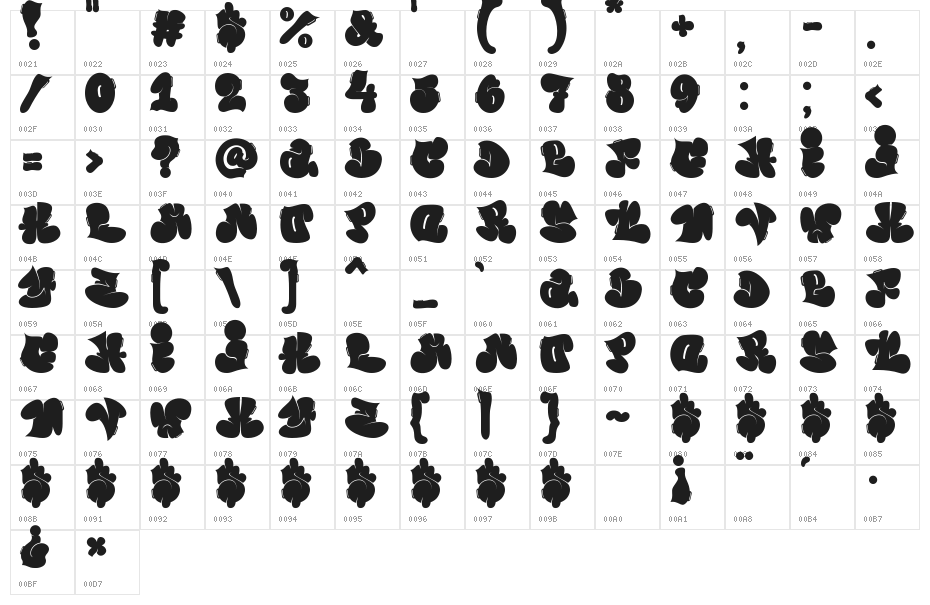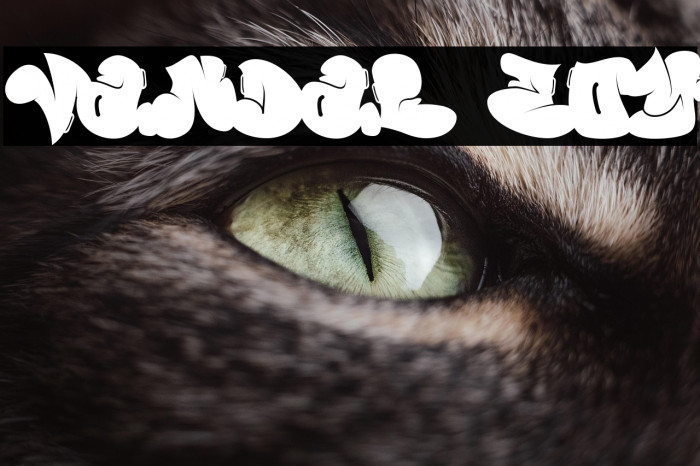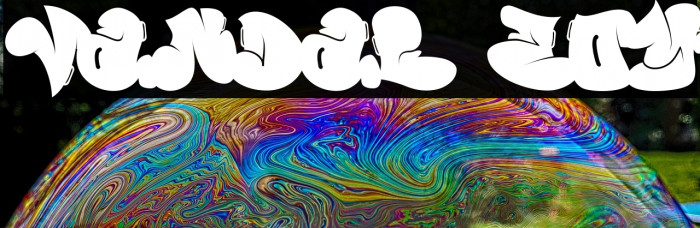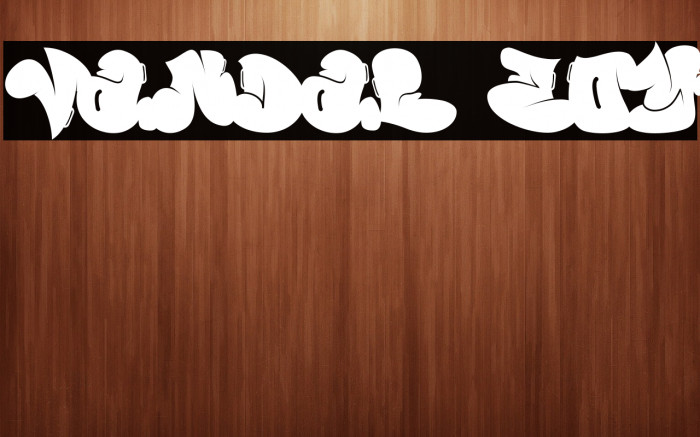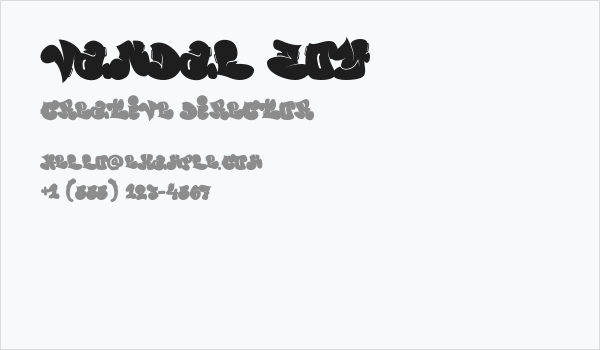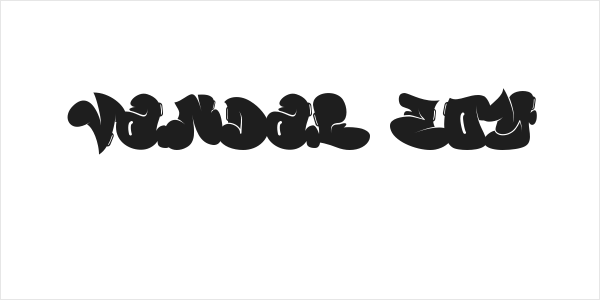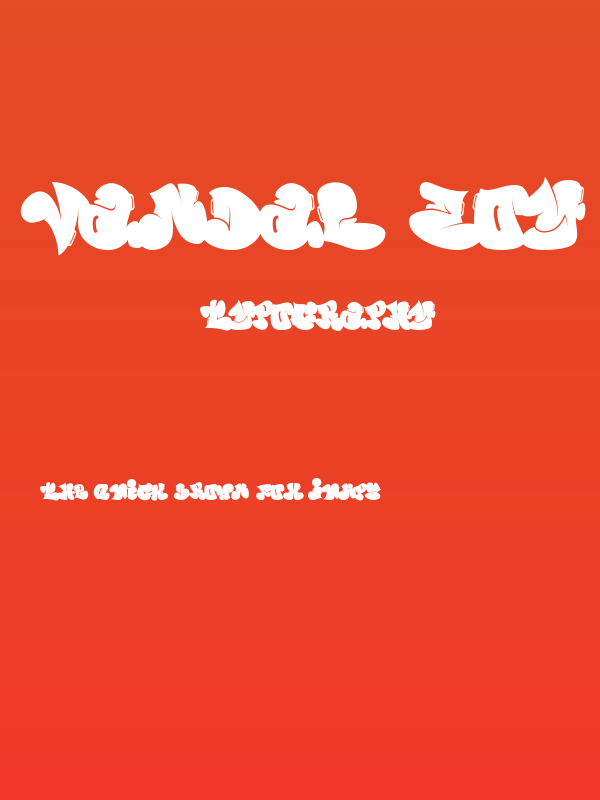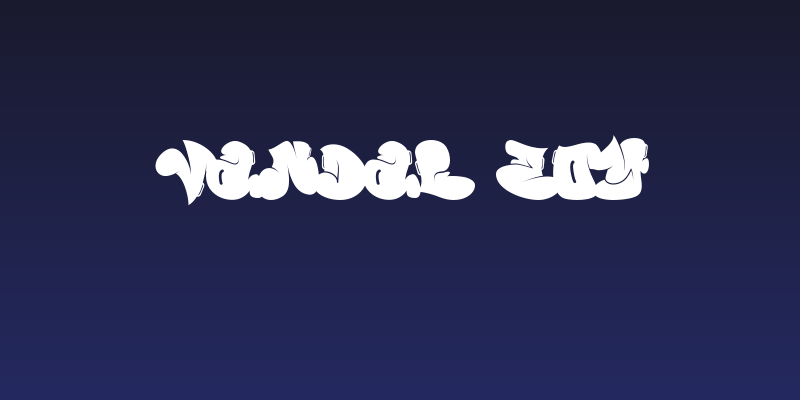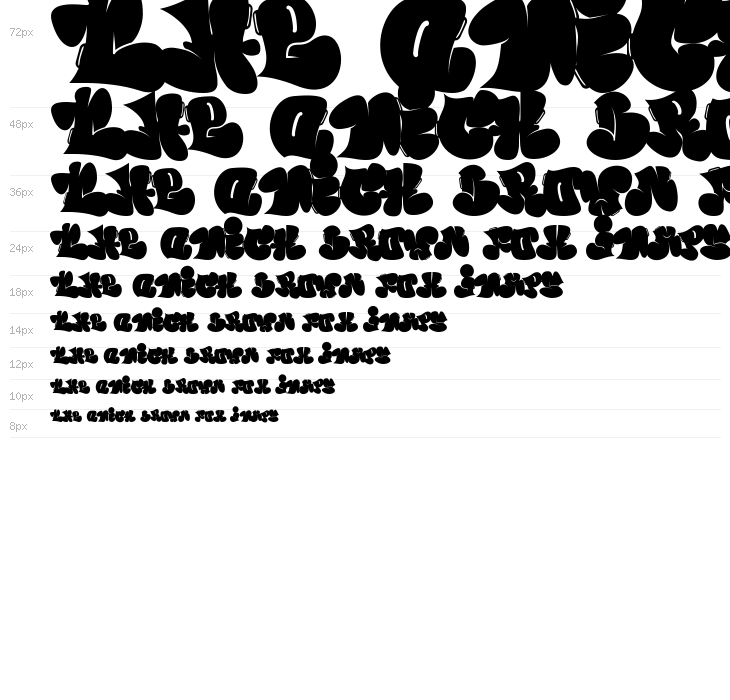
Vandal Zoy Font
Vandal Zoy Description
This font features a bold and playful design with a graffiti-inspired aesthetic. The characters are rounded and bulbous, giving them a unique, eye-catching appearance. The strokes are thick and consistent, creating a strong visual impact. The font exudes a sense of urban style and creativity, making it ideal for projects that require a bold statement. The characters are tightly spaced, enhancing the compact and cohesive look of the text. This font is perfect for designs that aim to capture attention and convey a sense of fun and energy.
| Overall Style | Modern, Urban |
| Proposed Projects | Ideal for street art designs, urban-themed posters, music album covers, and creative branding projects. |